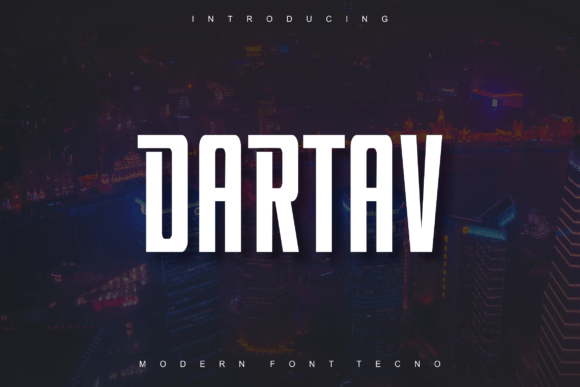
Introducing Dartav Font: The Ultimate Sans Serif for Modern Designs
In the world of typography, a font can make or break a design. For designers and crafters, finding the perfect font that embodies the essence of their project can be a daunting task. However, if you’re looking for a bold and authentic sans serif font that can elevate your branding projects, look no further than Dartav Font. In this article, we’ll dive into the features and benefits of Dartav Font, and explore how it can be the perfect addition to your design arsenal.
What is Dartav Font?
Dartav Font is a modern sans serif font designed to make a statement. Its bold and authentic style makes it suitable for a wide range of applications, from logos and t-shirt printing to export and more. The font’s clean lines and minimalist approach give it a fresh and contemporary look that’s sure to grab attention.
Key Features of Dartav Font
• Bold and Authentic Style: Dartav Font boasts a bold and authentic style that’s perfect for making a statement.
• Sans Serif Design: The font’s sans serif design gives it a clean and modern look that’s perfect for a wide range of applications.
• Highly Versatile: Dartav Font is highly versatile and can be used for various design projects, including logos, t-shirt printing, and more.
• Easy to Read: The font’s clear and concise design makes it easy to read, even at smaller sizes.
Benefits of Using Dartav Font
So, why should you choose Dartav Font for your design projects? Here are just a few benefits of using this amazing font:
• Instant Recognition: Dartav Font’s bold and authentic style ensures instant recognition and can help your brand stand out from the crowd.
• Flexibility: The font’s versatility means you can use it for a wide range of applications, from digital designs to print materials.
• Time-Saving: With Dartav Font, you can save time and effort in finding the perfect font for your project, allowing you to focus on the creative aspects of your design.
• Professional Look: The font’s modern and clean design gives your project a professional look that’s sure to impress.
Use Cases for Dartav Font
Dartav Font is an incredibly versatile font that can be used for a wide range of design projects. Here are some use cases to get you started:
• Logo Design: Dartav Font’s bold and authentic style makes it perfect for logo design, helping your brand stand out from the competition.
• T-Shirt Printing: The font’s clear and concise design makes it ideal for t-shirt printing, ensuring your message is loud and clear.
• Digital Designs: Dartav Font can be used for a wide range of digital designs, from social media graphics to website headers.
• Print Materials: The font’s versatility means you can use it for print materials, such as brochures, flyers, and more.
Font Name Dartav Font
Author kalingga.albert
In conclusion, Dartav Font is an exceptional sans serif font that’s perfect for designers and crafters looking for a bold and authentic style. Its versatility, ease of use, and professional look make it an excellent addition to any design project. Whether you’re working on a logo, t-shirt printing, or digital design, Dartav Font is sure to deliver outstanding results. So, why wait? Give Dartav Font a try today and take your designs to the next level!